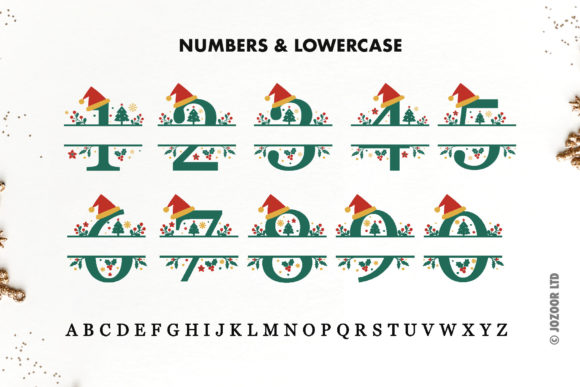
Christmas Split Monogram Font
Christmas Split Monogram is a cute decorative color font with an amazing look for Christmas designs, shirts, crafts, farmhouse decor, SVG designs, craft projects, Holiday designs, and more.